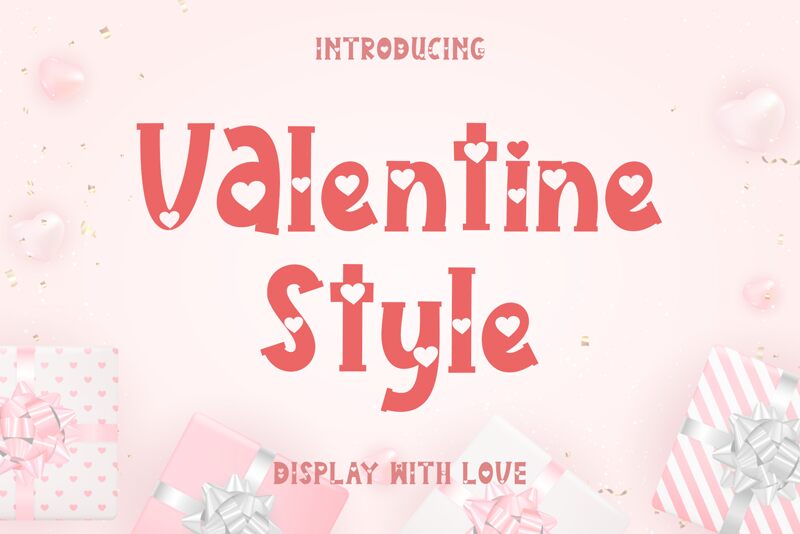
Valentine Style is a bold, valentine comic font designed by Yoga Letter 2023 (Isroni Yoga Prasetya). It's perfect for creating fun and romantic projects like greeting cards, wedding invitations, logos, and more.